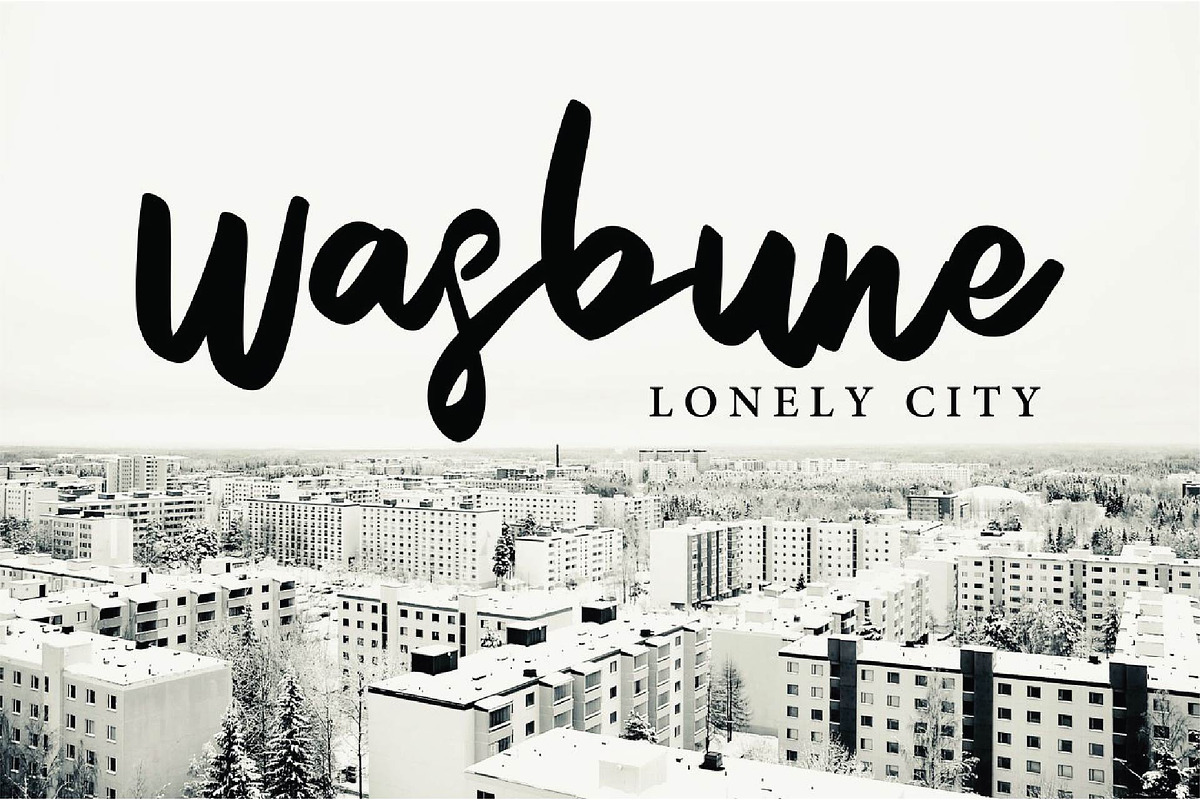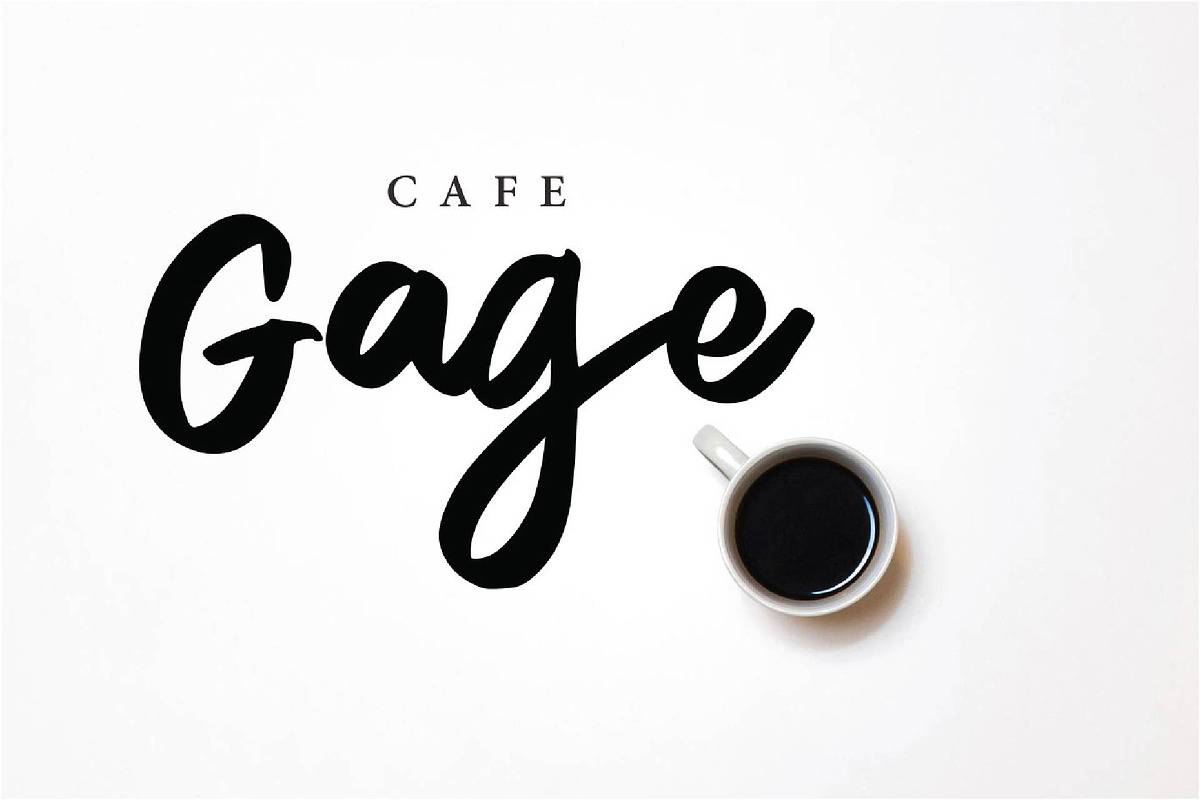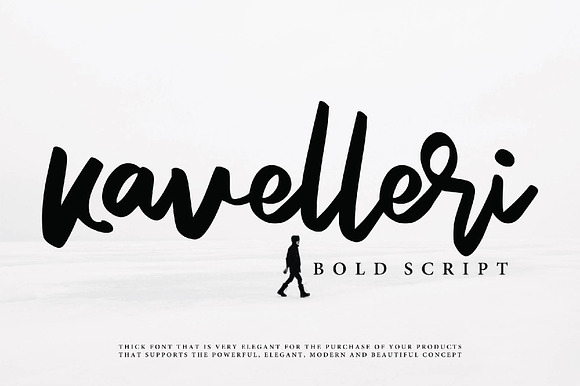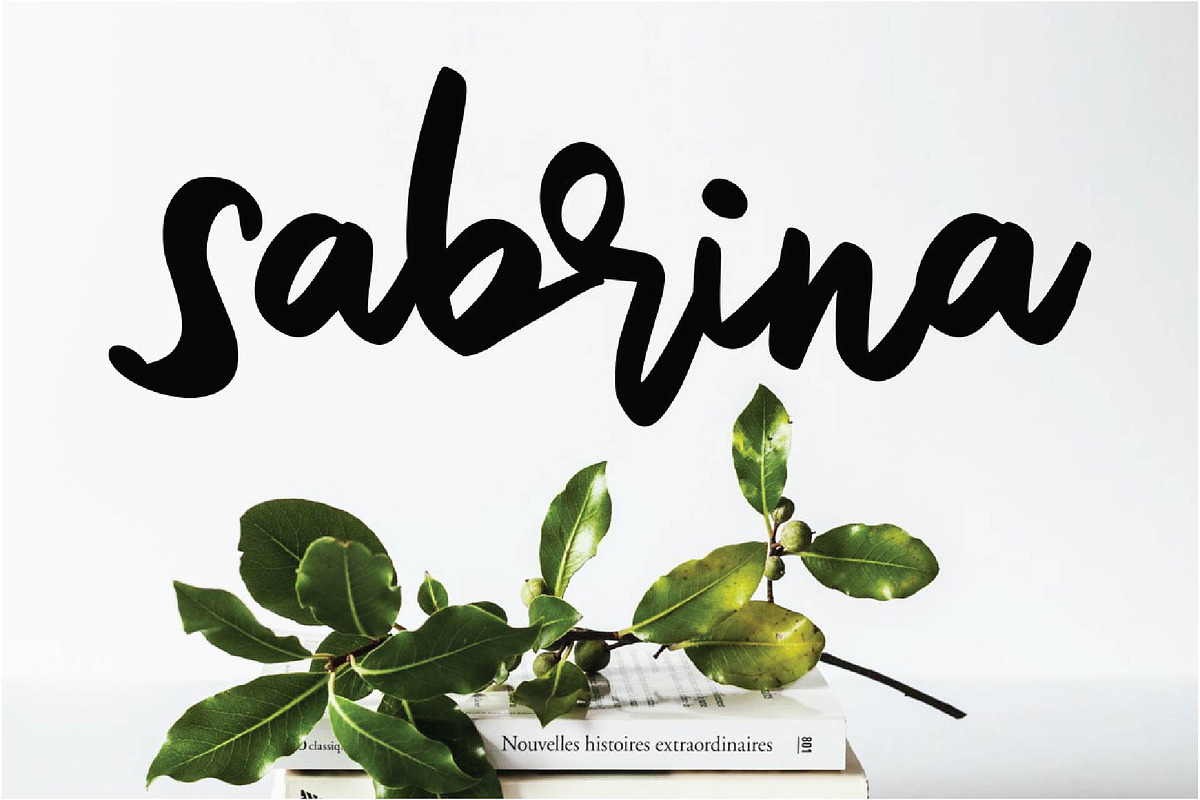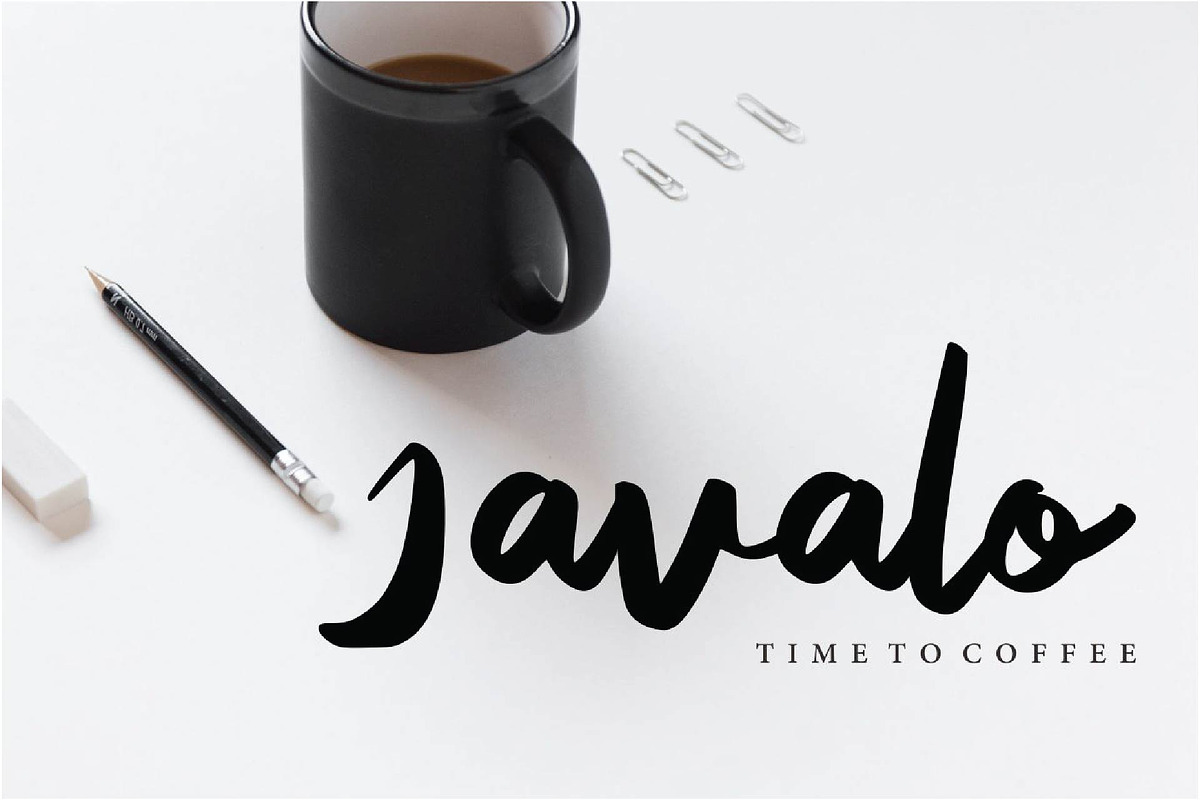
Kavelleri - Brush Font
Kavelleri - Brush Font with a calligraphy style, So beautiful on invitation like greeting cards, branding materials, business cards, quotes, posters, and more!
The alternative characters were divided into several features such as Stylistic Sets, Stylistic Alternates, Contextual Alternate, SWASH and Ligature.
- Alternates and Ligatures
Kavelleri - Brush Font by KAZ by IanMikraz Studio fits naturally into Branding, posters, packaging, typography.